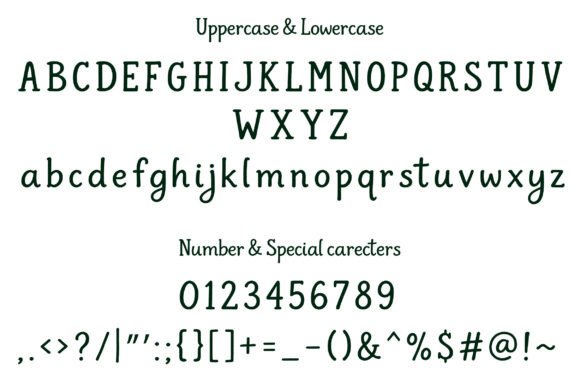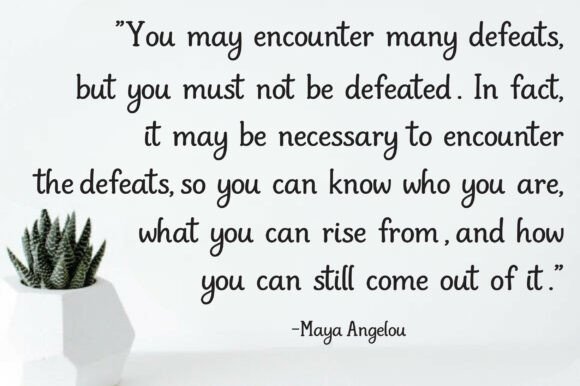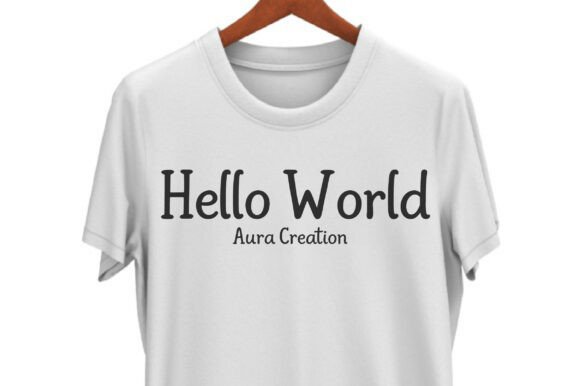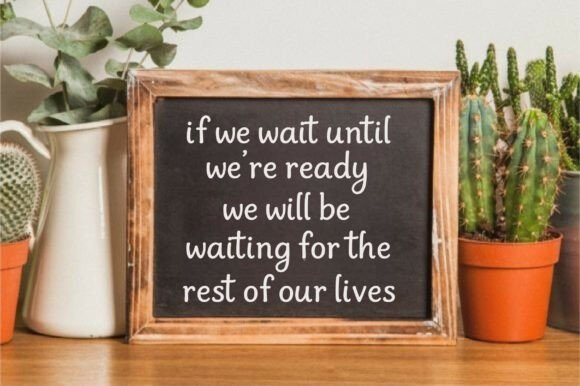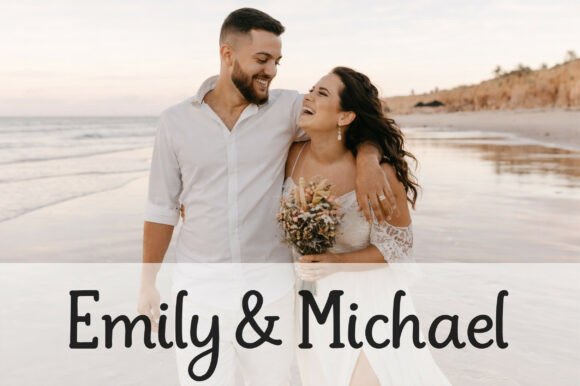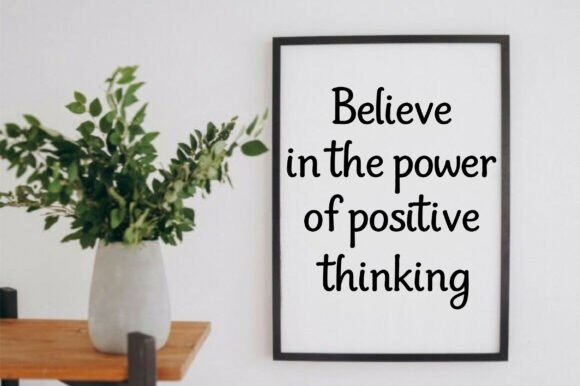
Introduction to Simple Handdrawn Font
Have you ever been in the middle of a creative project, struggling to find the perfect font to bring your idea to life? You’ve scrolled through countless options, but nothing seems to fit the tone and feel you’re aiming for. That’s where the Simple Handdrawn Font comes in – a clean, friendly, and highly versatile font that’s perfect for adding a warm, handwritten touch to your designs.
This beautiful font is more than just a pretty face – it’s a valuable resource for designers who want to create high-quality, visually appealing projects that stand out from the crowd. With its smooth, medium-weight style, Simple Handdrawn Font is perfect for t-shirts, quotes, logos, social media graphics, and more. Plus, it’s free to download, making it an accessible design resource for creatives of all levels.
Whether you’re working on a personal project or a professional assignment, the Simple Handdrawn Font is sure to bring a touch of elegance and sophistication to your design. And with its transparent background option, you can easily integrate it into your project without worrying about a cluttered or messy look.
Key Features of Simple Handdrawn Font
- Unique Hand-Drawn Design: The Simple Handdrawn Font features a distinctive, hand-drawn aesthetic that adds a personal touch to any creative project.
- Perfect for Creative Projects: This font is ideal for use in creative projects such as invitations, posters, and social media graphics, where a unique and personal touch is desired.
Honest Review: Simple Handdrawn Font
What works well with this font is its unique, handdrawn feel, which adds a touch of personality to any design. It’s perfect for projects that require a more organic and creative approach. ✨ The font is also highly versatile, making it suitable for a wide range of design applications, from logos to typography-based art.
- High-quality font files
- Unique, handdrawn design
- Perfect for creative projects and design resources
However, I did encounter some limitations. The font is not ideal for projects that require precise typography or a more modern aesthetic. Additionally, the font’s character set is not as extensive as some other fonts I’ve worked with. ⚠️
Overall, I’m impressed with the Simple Handdrawn Font and would recommend it to designers looking for a high-quality, creative design resource. Just be aware of its limitations, and it should serve you well for your next project.
The Simple Handdrawn Font is a versatile design resource perfect for creative projects requiring a high quality, free download. This font is ideal for designers seeking a unique touch for their work.
The Simple Handdrawn Font is suitable for a wide range of creative projects, including:
- Invitations and event flyers
- Business cards and branding materials
- Infographics and educational materials
- Personal projects and art pieces
To get the most out of the Simple Handdrawn Font, experiment with different font sizes and styles. You can also combine the font with other design elements, such as illustrations and graphics, to create a unique and eye-catching design.